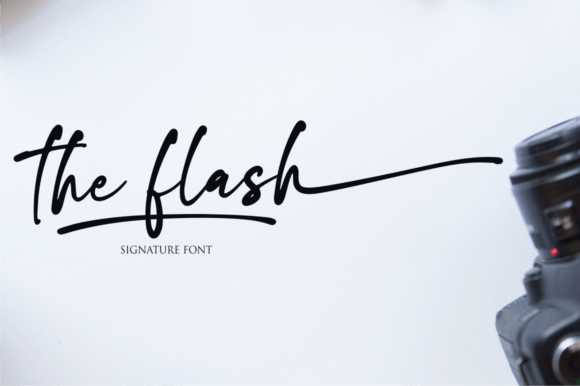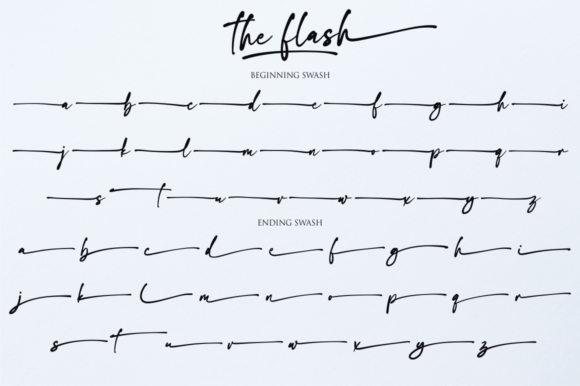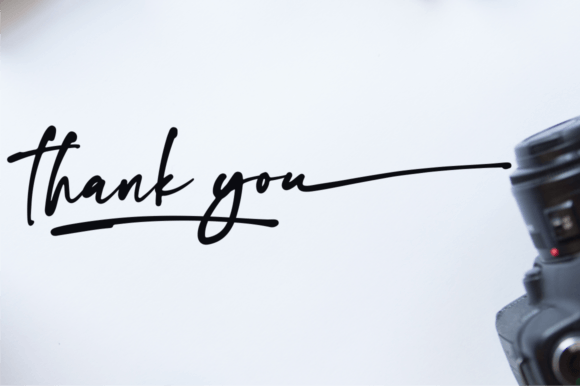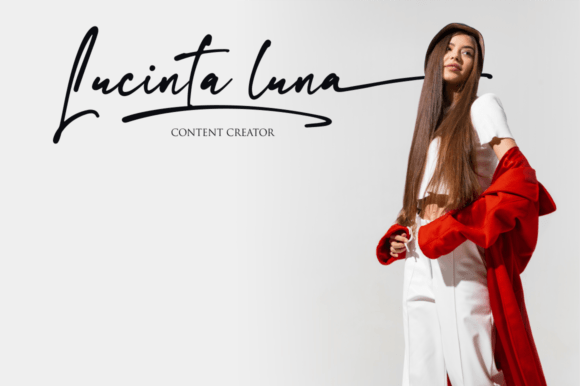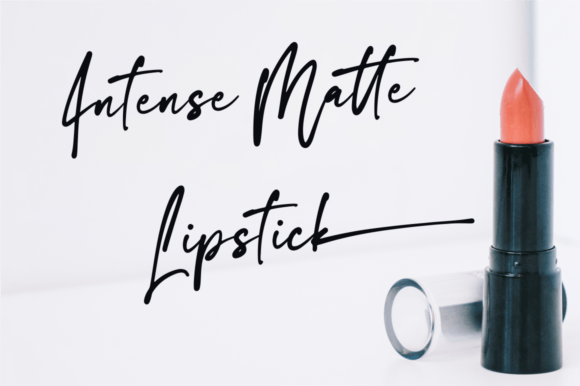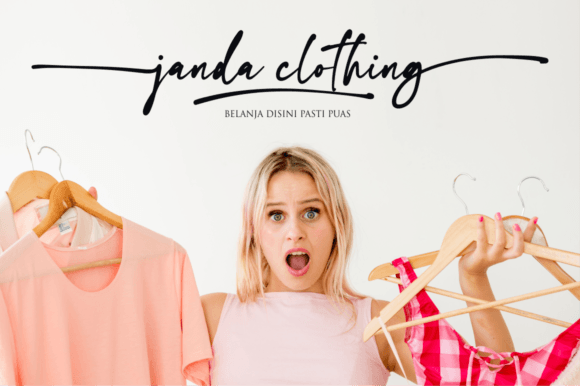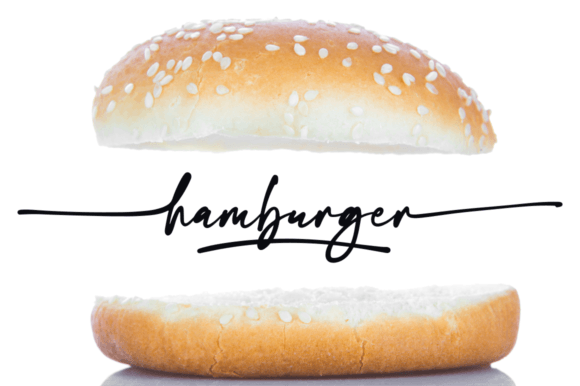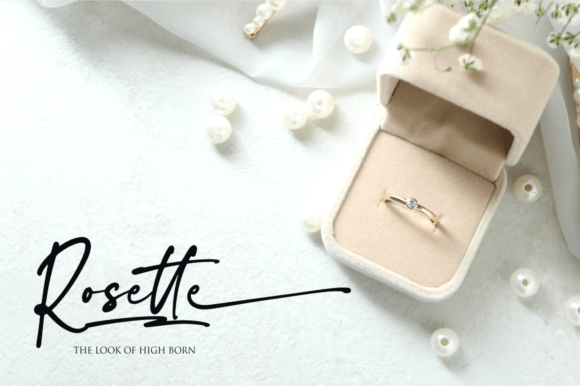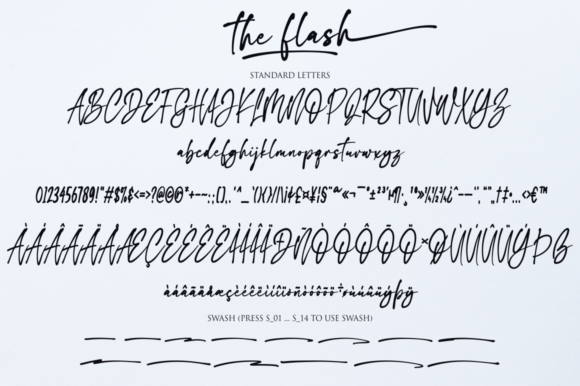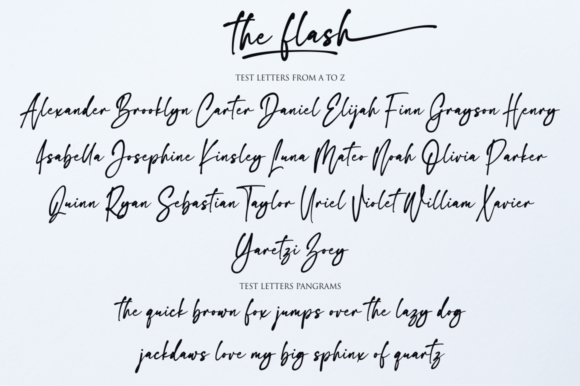
The Flash Font
About The Flash Font
“The Flash” introduces itself as a flowing handwritten font characterized by an elegant touch, making it an excellent choice for a variety of creative projects. With its distinct and timeless style, this font is designed to captivate and elevate your designs to new heights.
The flowing nature of “The Flash” is immediately apparent, contributing to its overall elegance. The letters seamlessly connect, creating a script that exudes a sense of continuity and fluidity. This quality makes the font well-suited for projects that require a harmonious and graceful aesthetic.
The elegance of “The Flash” is a standout feature that sets it apart. The font is crafted with precision, and its design reflects a touch of sophistication that can enhance the visual appeal of your favorite projects. Whether you’re working on branding, invitations, or other creative endeavors, “The Flash” introduces a level of refinement.
The distinct and timeless style of “The Flash” ensures its versatility across various design themes. It can adapt to both modern and classic contexts, making it a font that transcends temporal boundaries. This flexibility allows designers to use “The Flash” in a wide range of applications.
Falling in love with the font is an understandable sentiment, given its unique and captivating characteristics. Its timeless style means that “The Flash” is not just a fleeting trend; it becomes a lasting element in your design toolkit, ready to be utilized for spectacular creations.
In conclusion, “The Flash” is more than just a font; it’s an elegant and timeless script that brings a touch of sophistication to your projects. As you explore its distinct style, you’ll find that it has the potential to create spectacular designs that stand out and leave a lasting impression. Incorporate “The Flash” into your creative repertoire, and watch as it transforms your favorite projects into visual masterpieces.